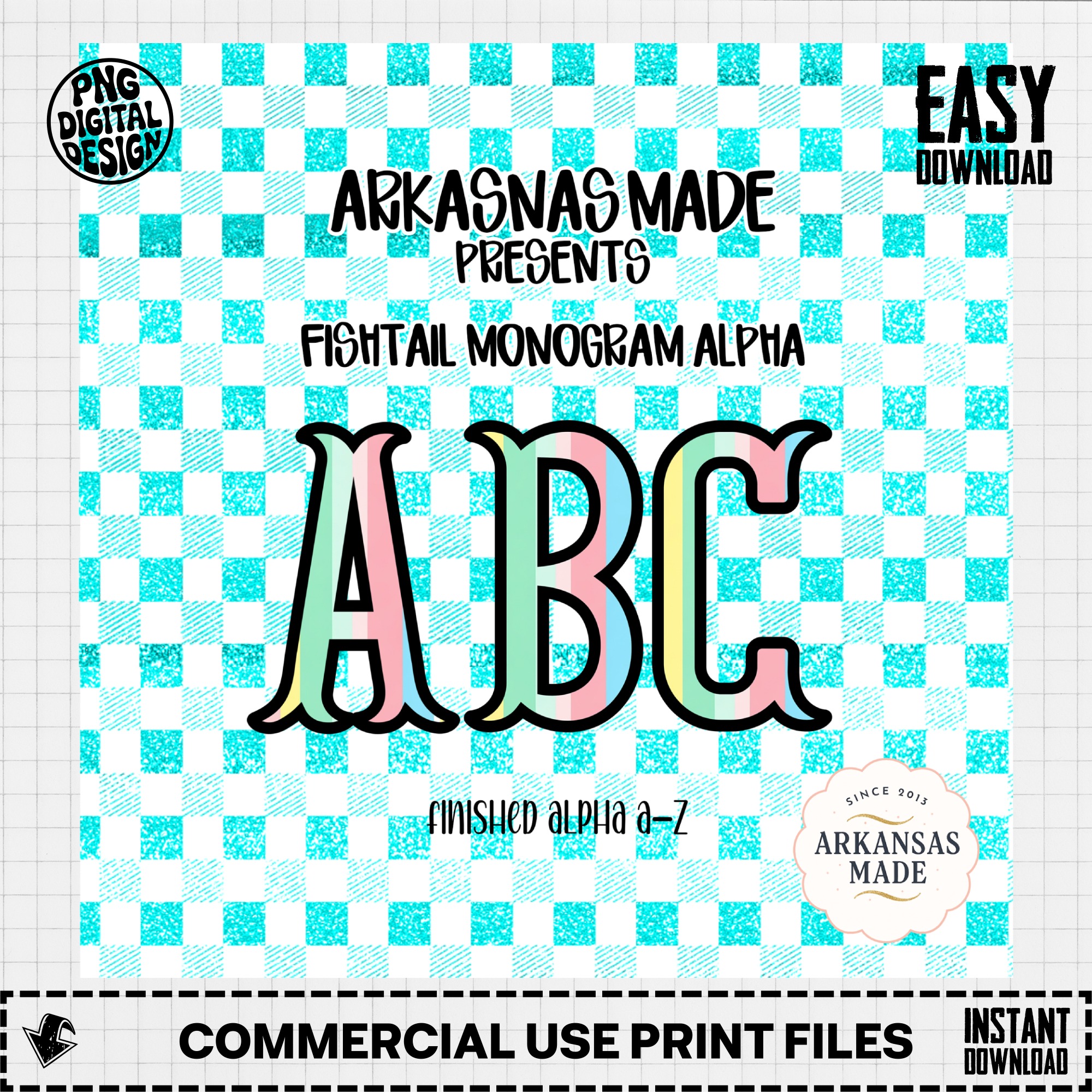
This Fishtail Monogram Alpha PNG digital download offers a complete alphabet set from A-Z, perfect for all your personalized creative projects. Each letter features an elegant pastel striped design, beautifully complemented by a unique teal glitter checkered background. Elevate your crafts, apparel, and digital designs with this charming and versatile graphic.
* Complete alphabet set (A-Z) included for versatile use.
* Fishtail monogram style in attractive, soft pastel striped colors.
* Eye-catching teal glitter checkered background pattern.